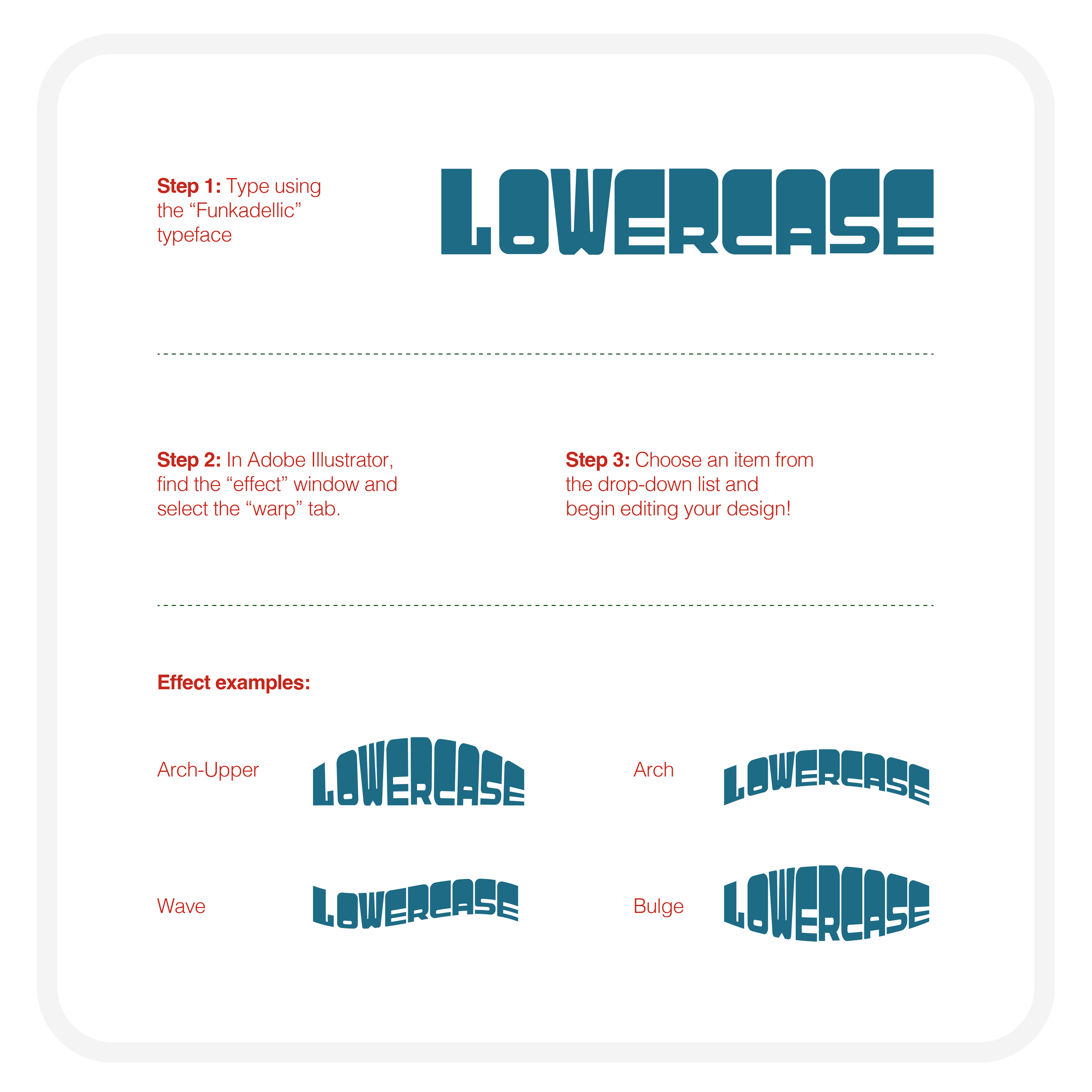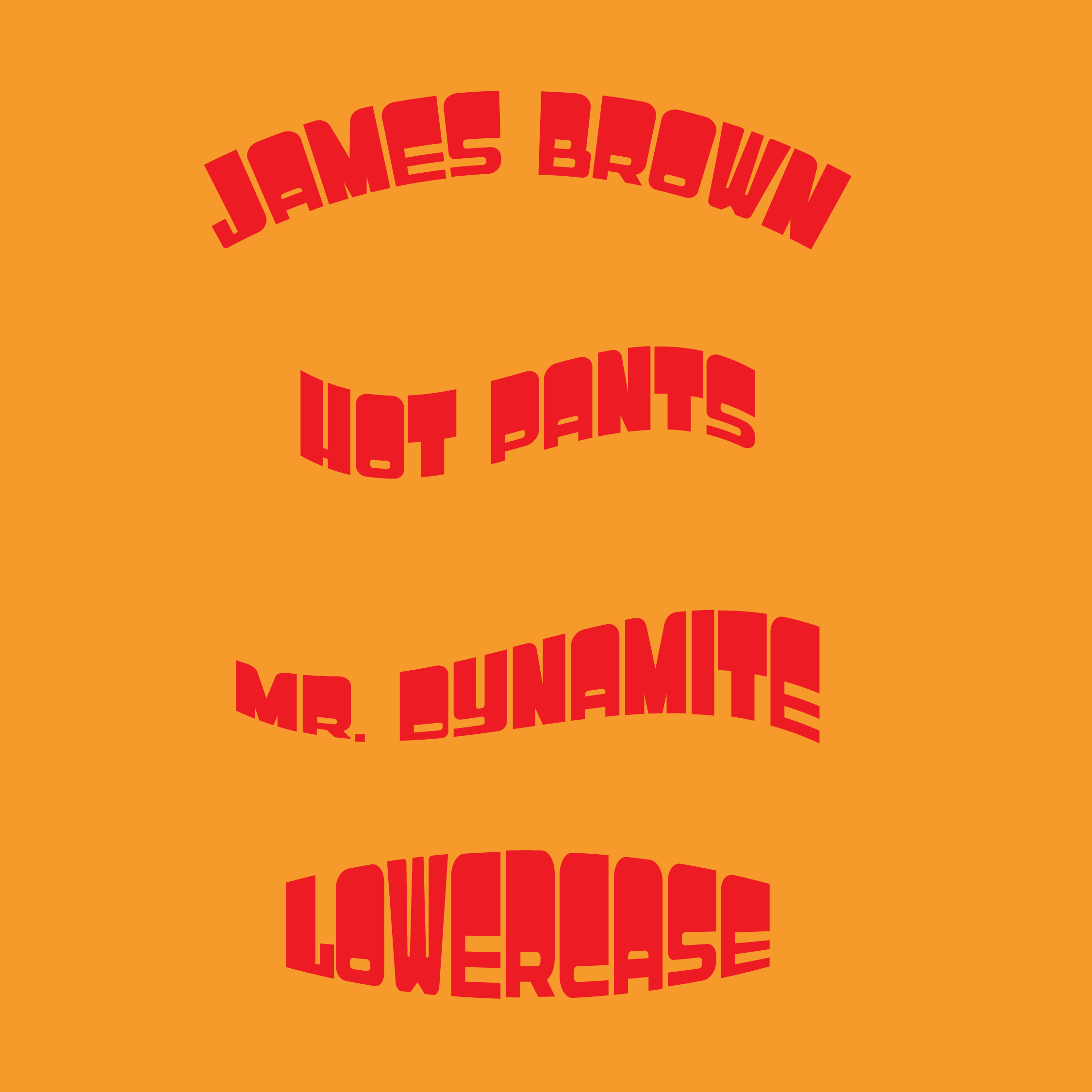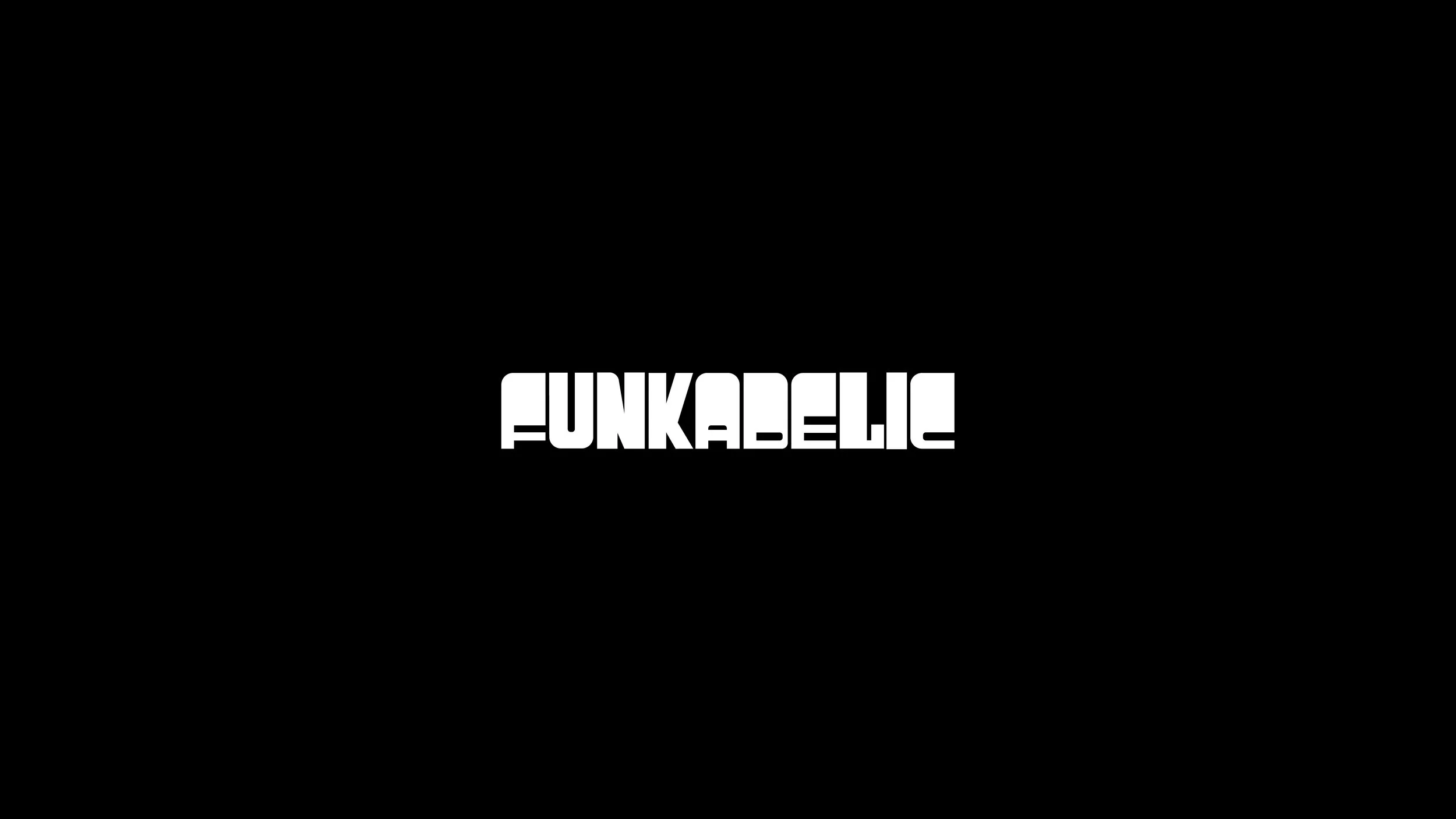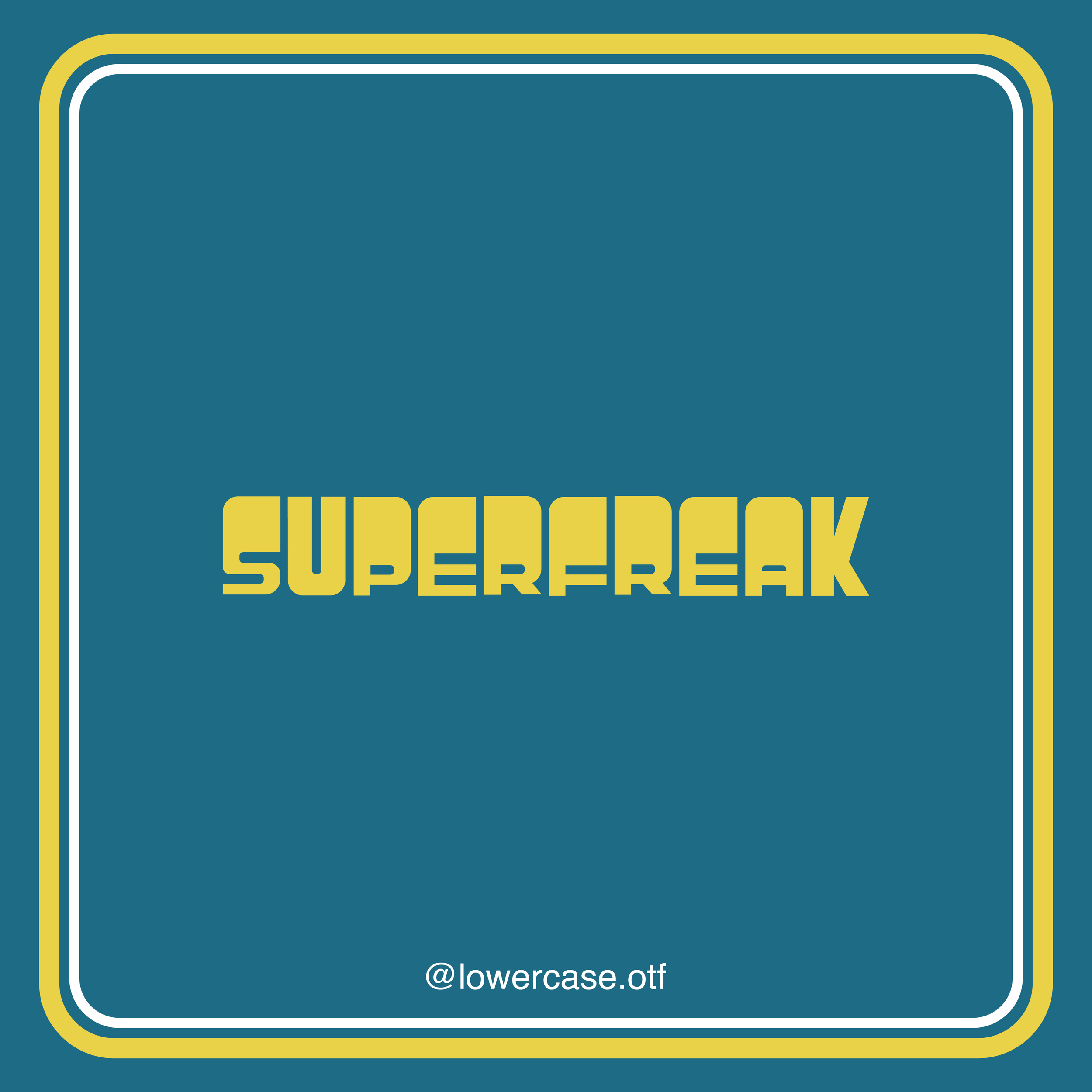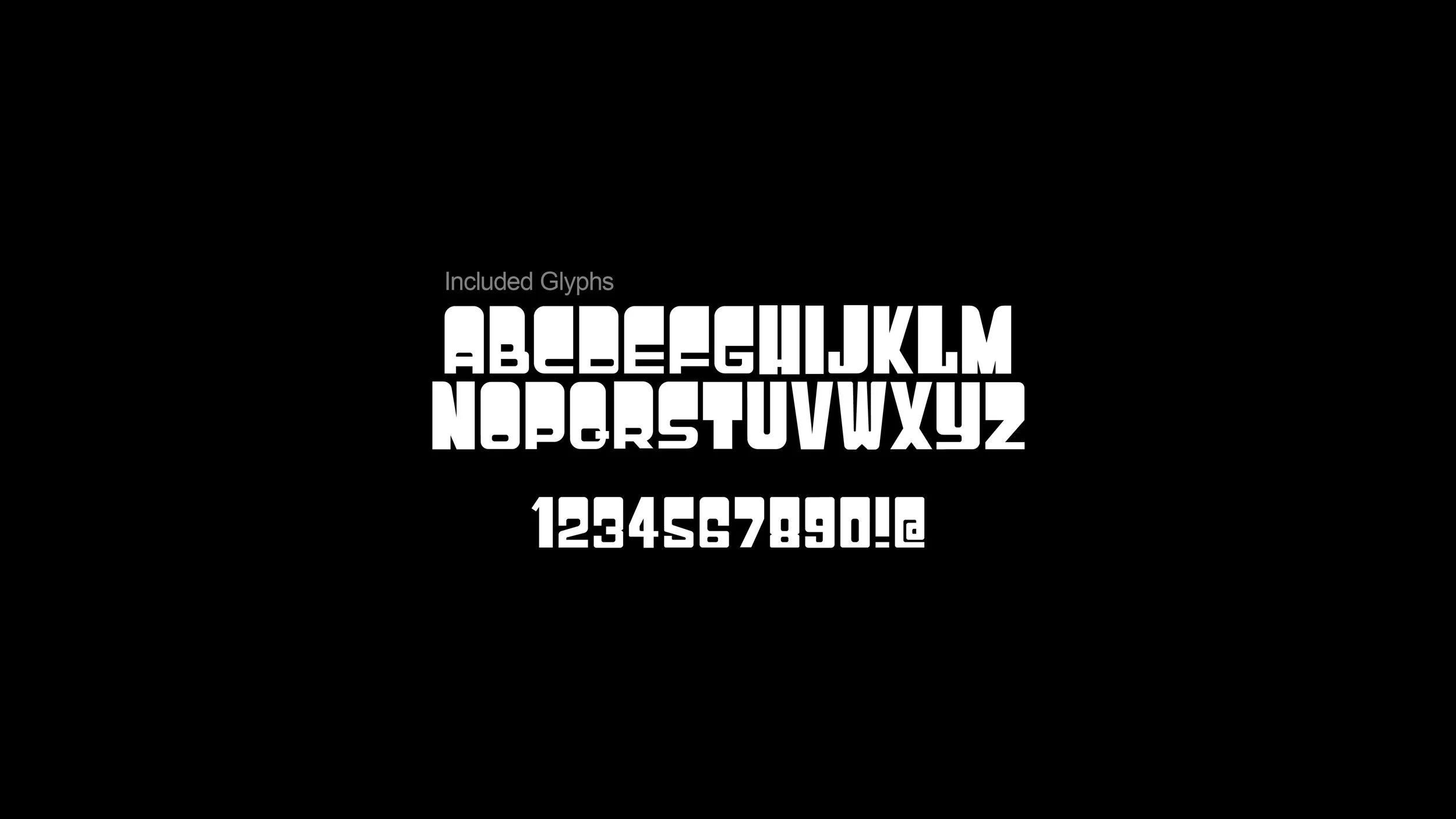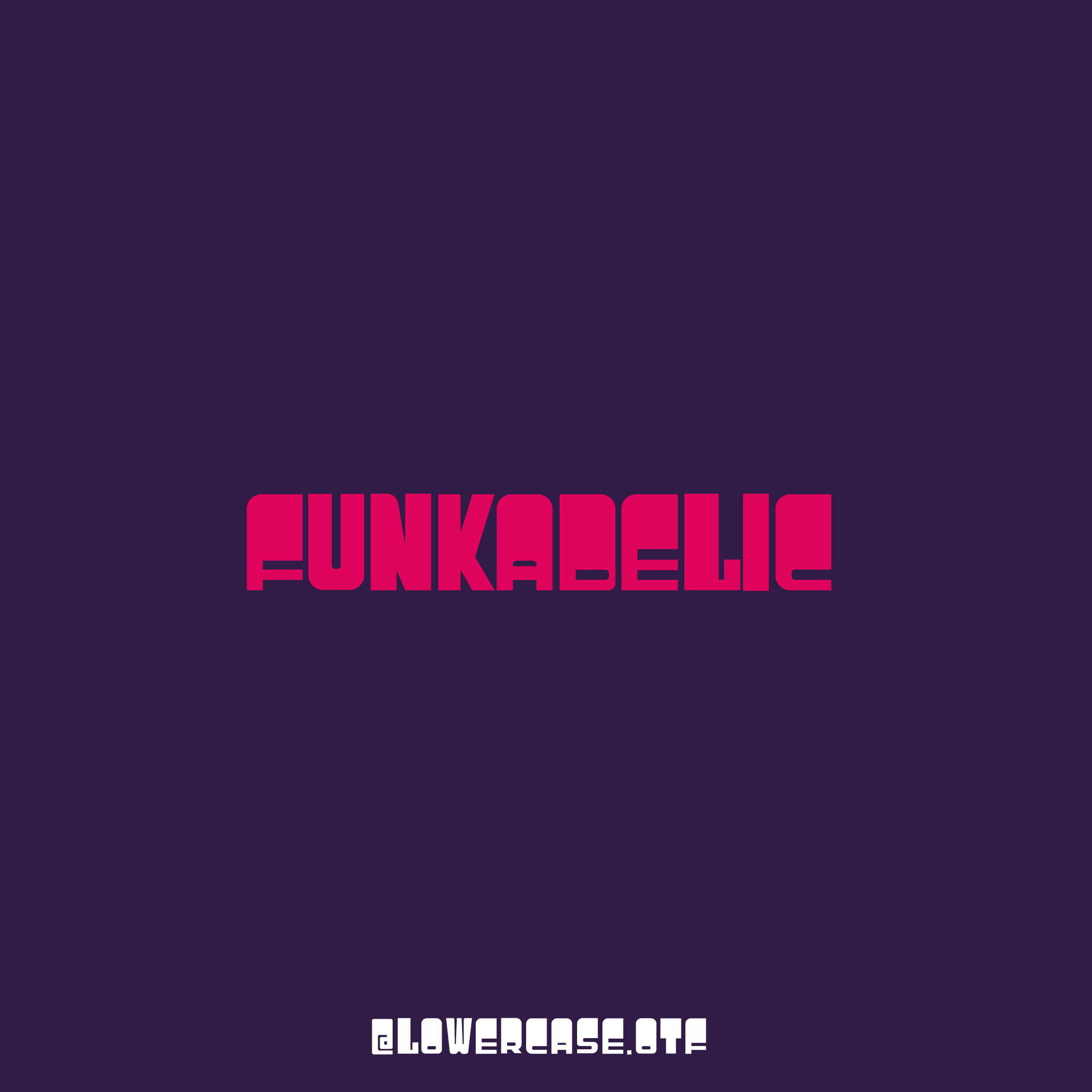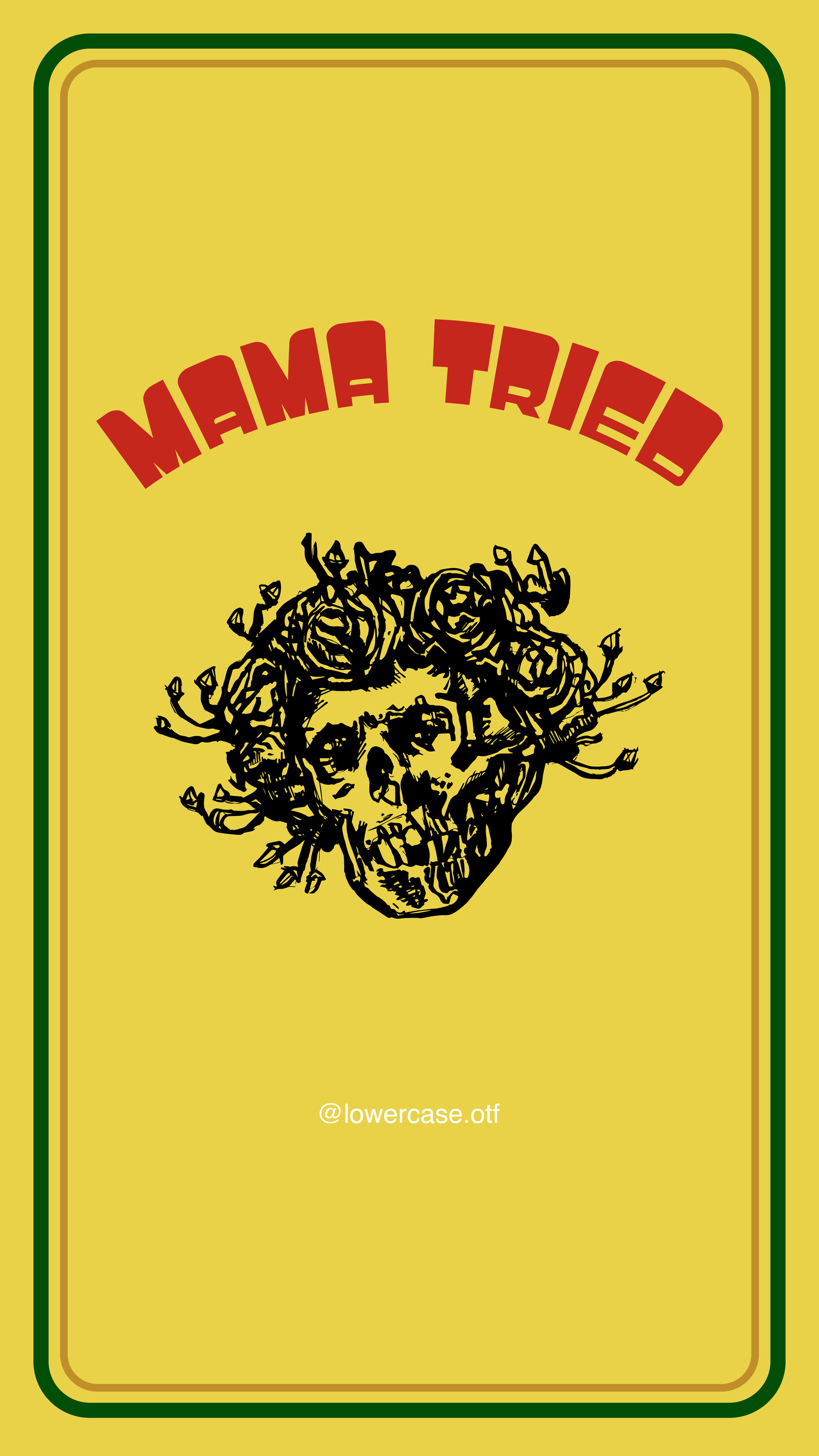
“Funkadelic” is a bold, flexible typeface inspired by all things funk and ’80s. Its geometric letterforms bring a retro feel with a modern edge. Available in one weight.
Name: Funkadelic